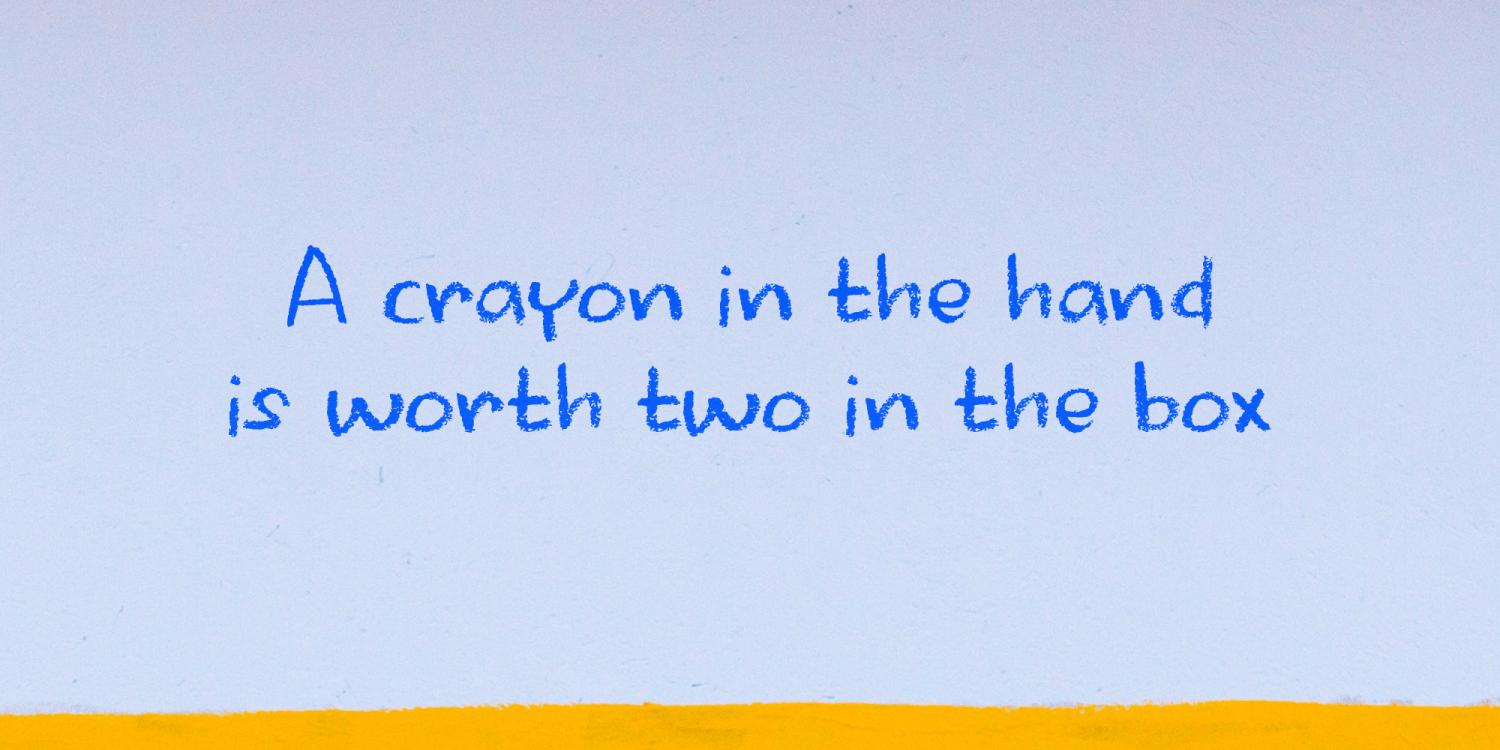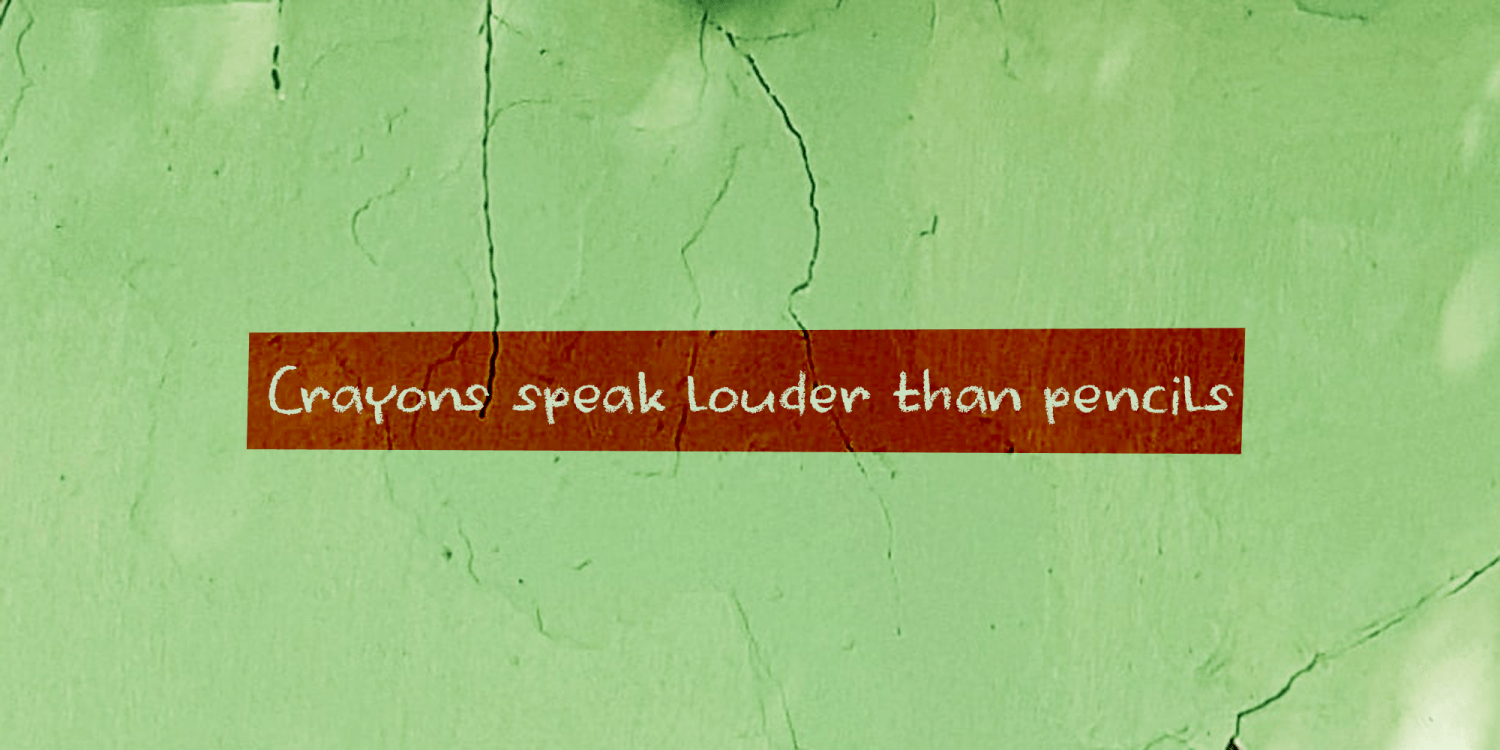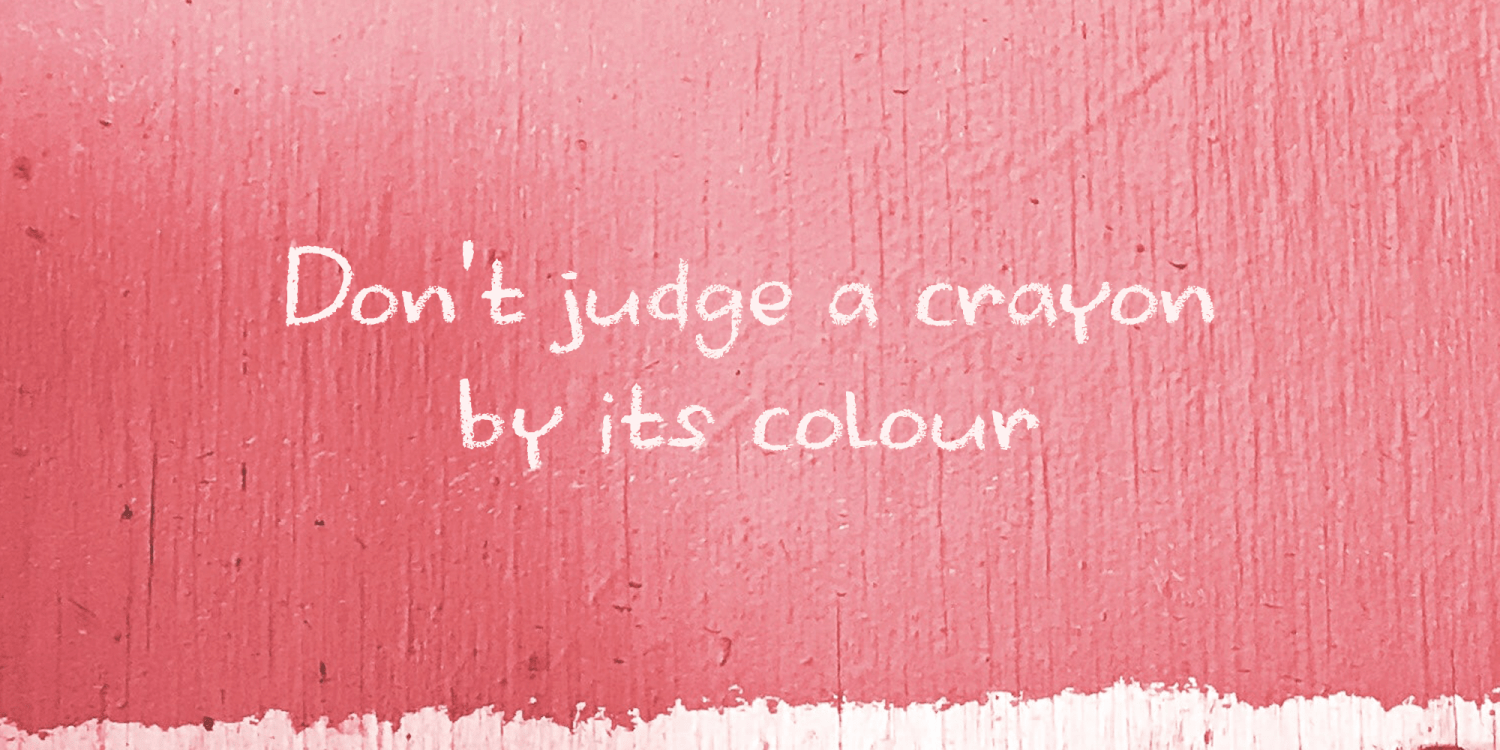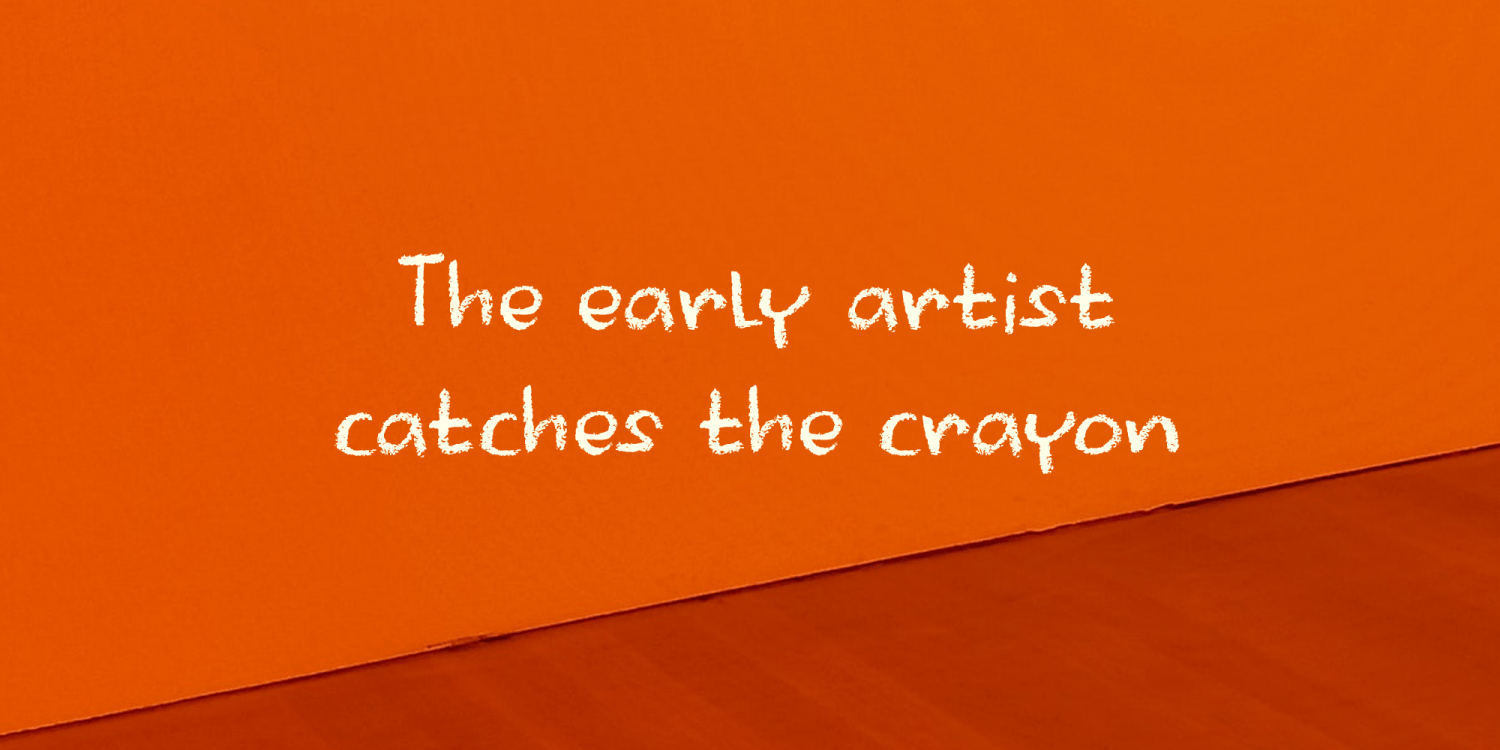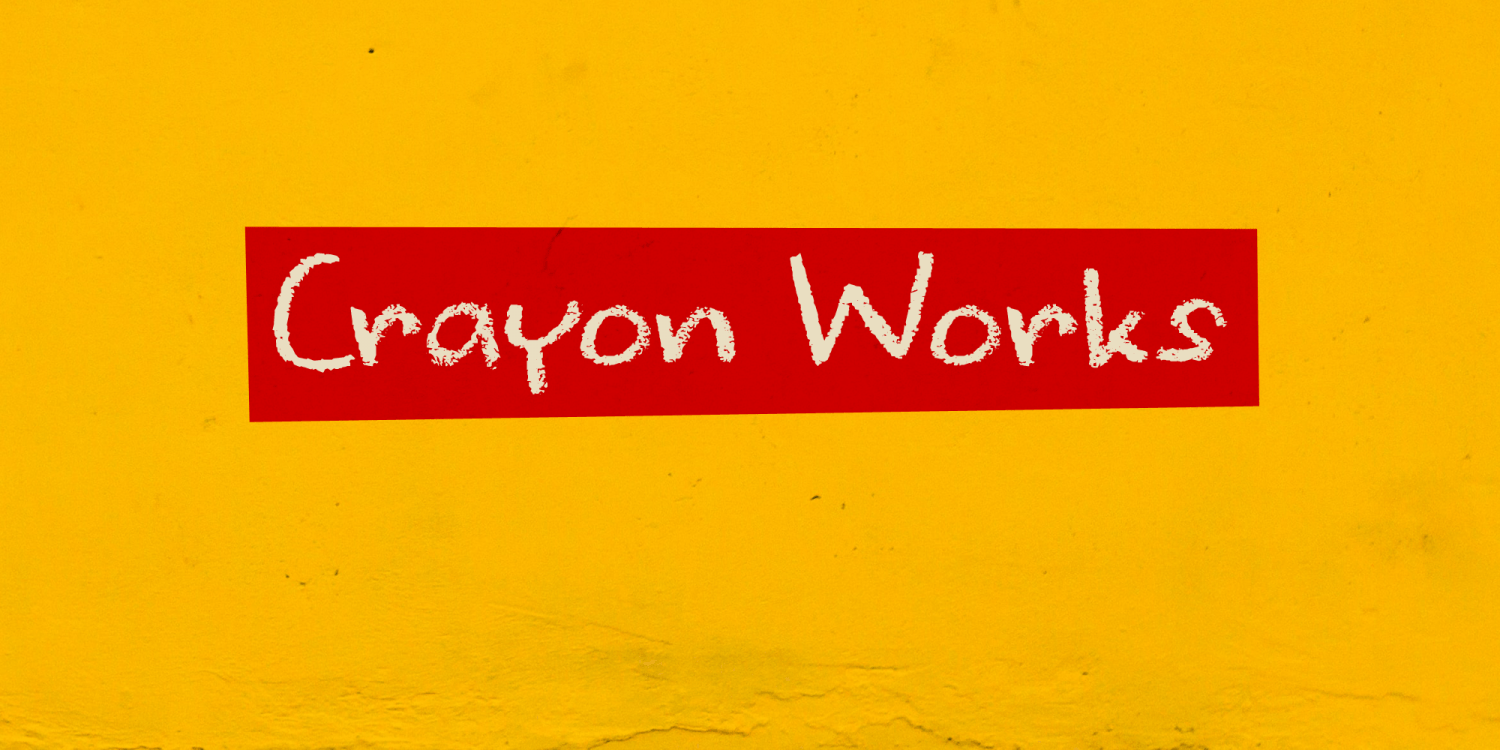
Crayon Works
About Crayon Works
My kids had been playing with crayons, so I stole a nice dark one to make a fonts with. Meet Crayon Works – a rounded, handmade childlike font made with my kids? crayons!